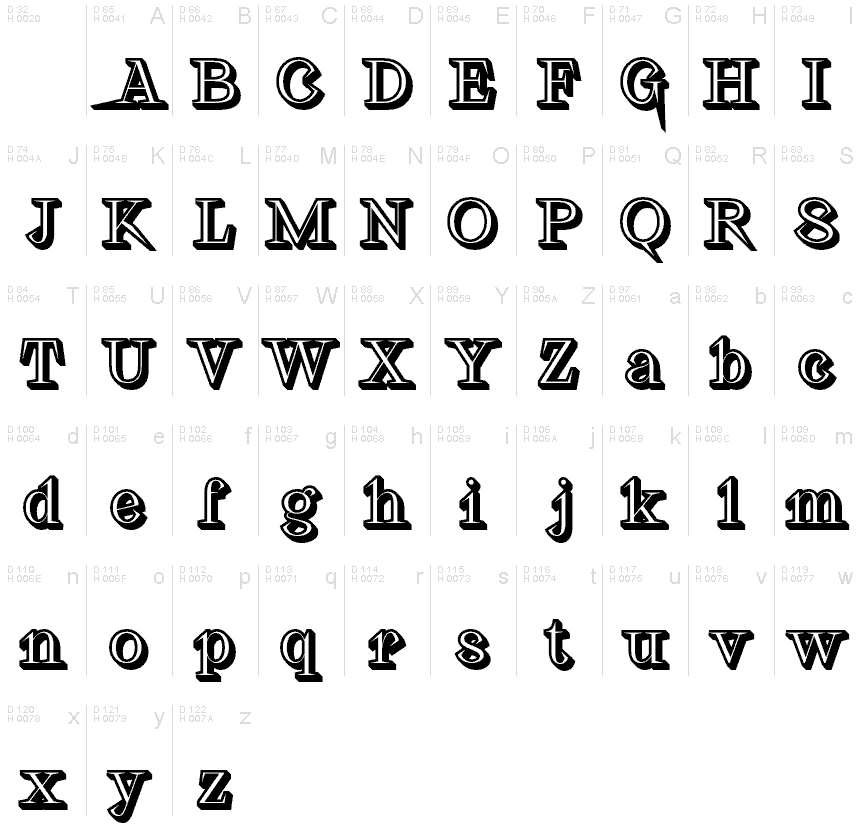
Ribka 3D Demo Extrude Right
Ribka 3D Extrude Right font by Craft Supply Co. is a display font with ornate, decorative elements and retro inspiration. With a classic Art Deco vibe, the font holds strong serif influences that can be seen in the bold letter outlines and exaggerated stems.